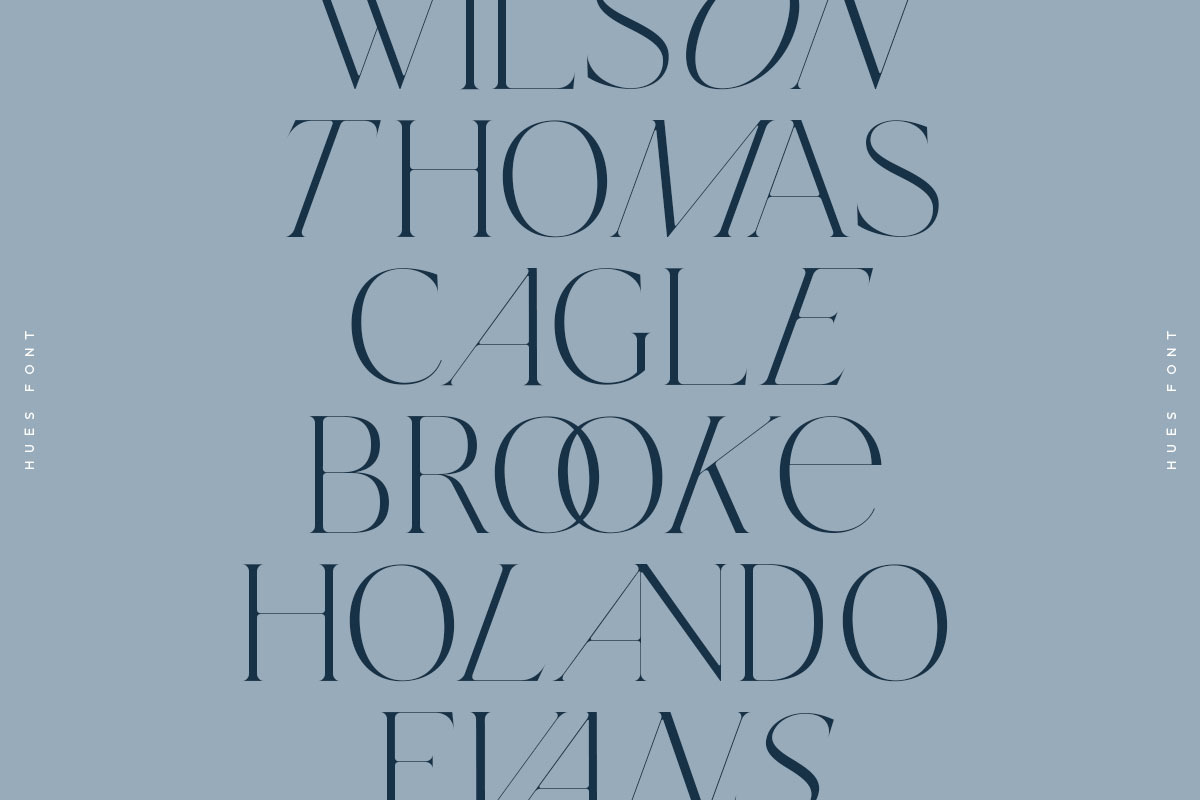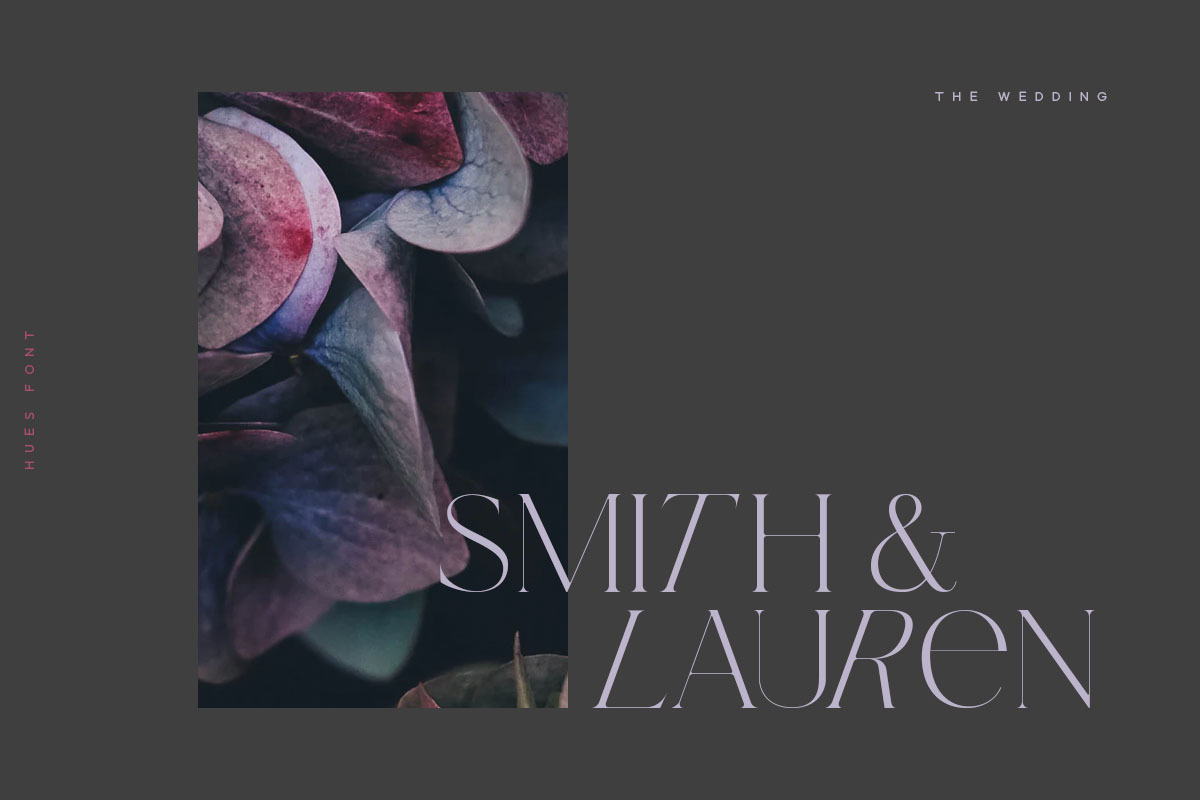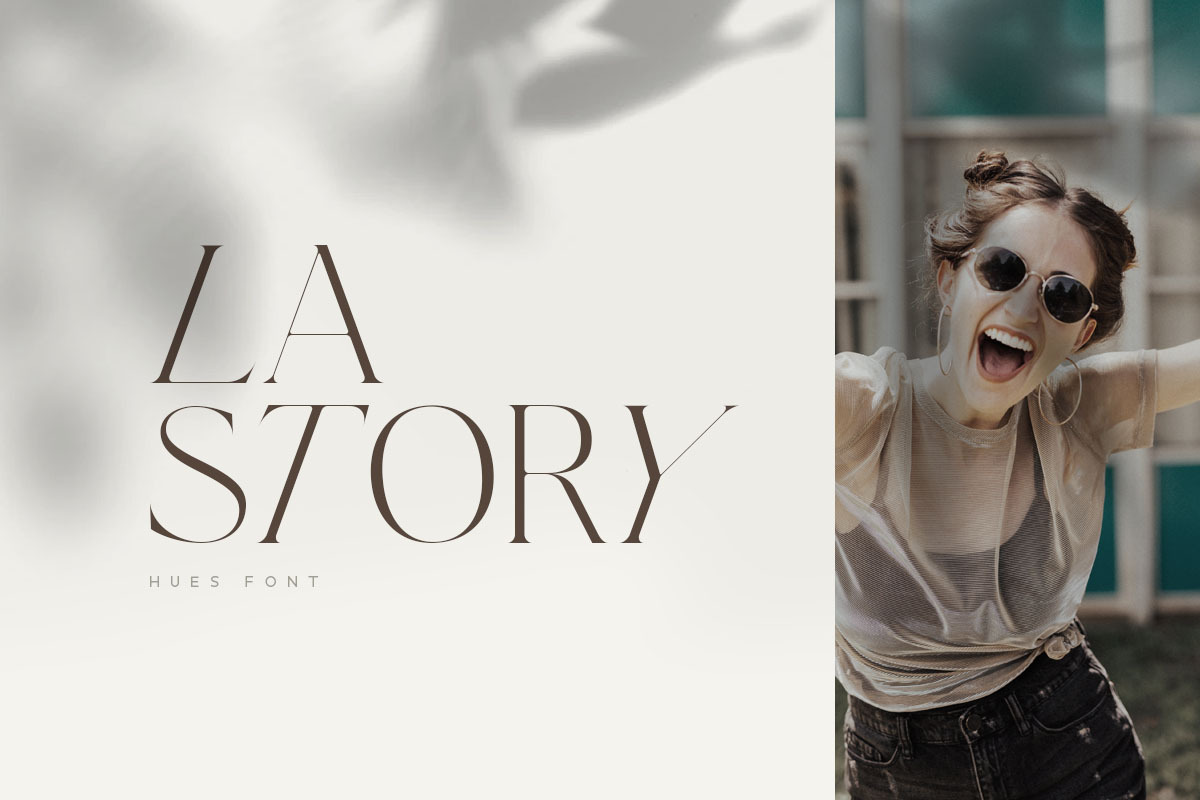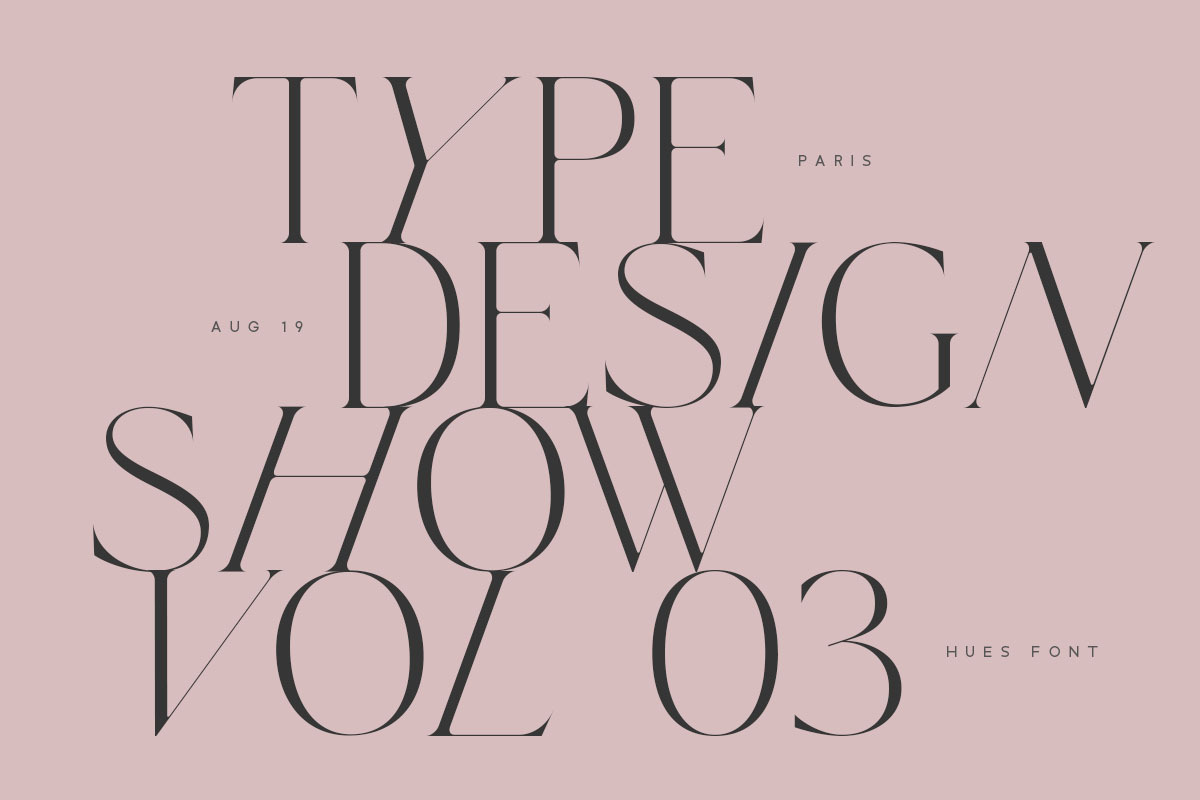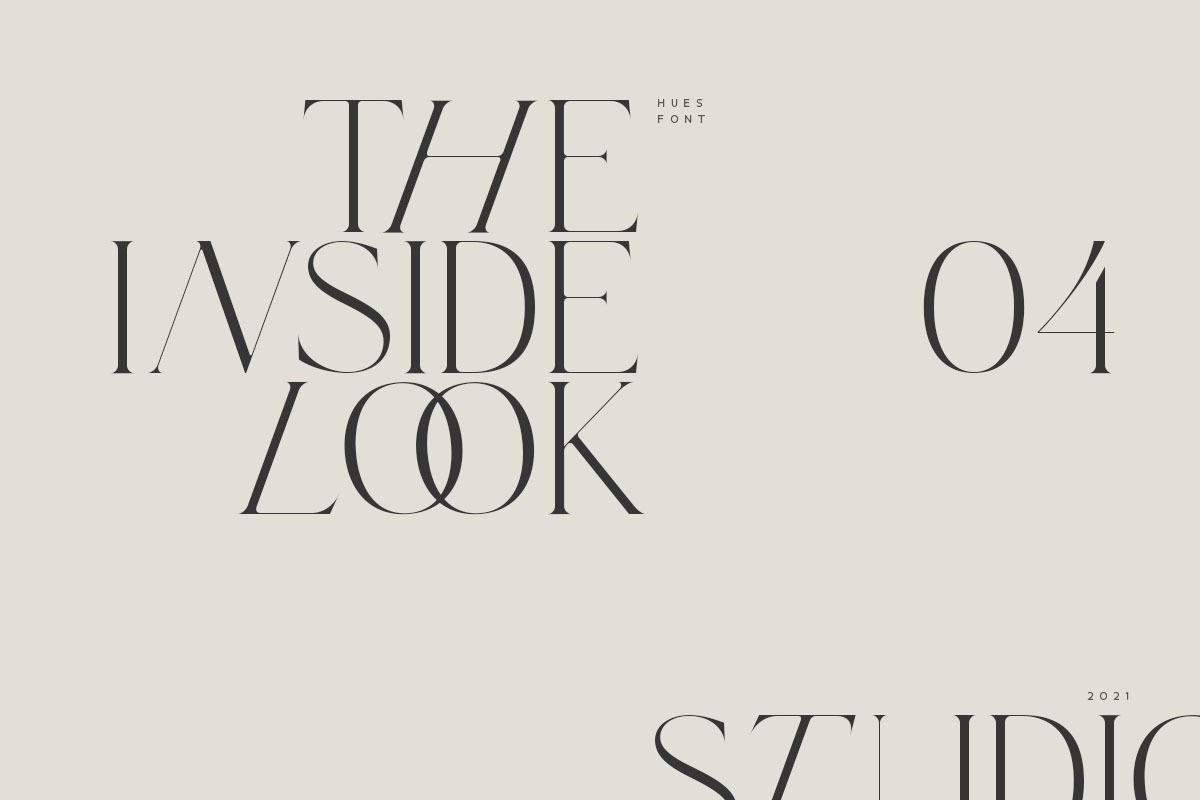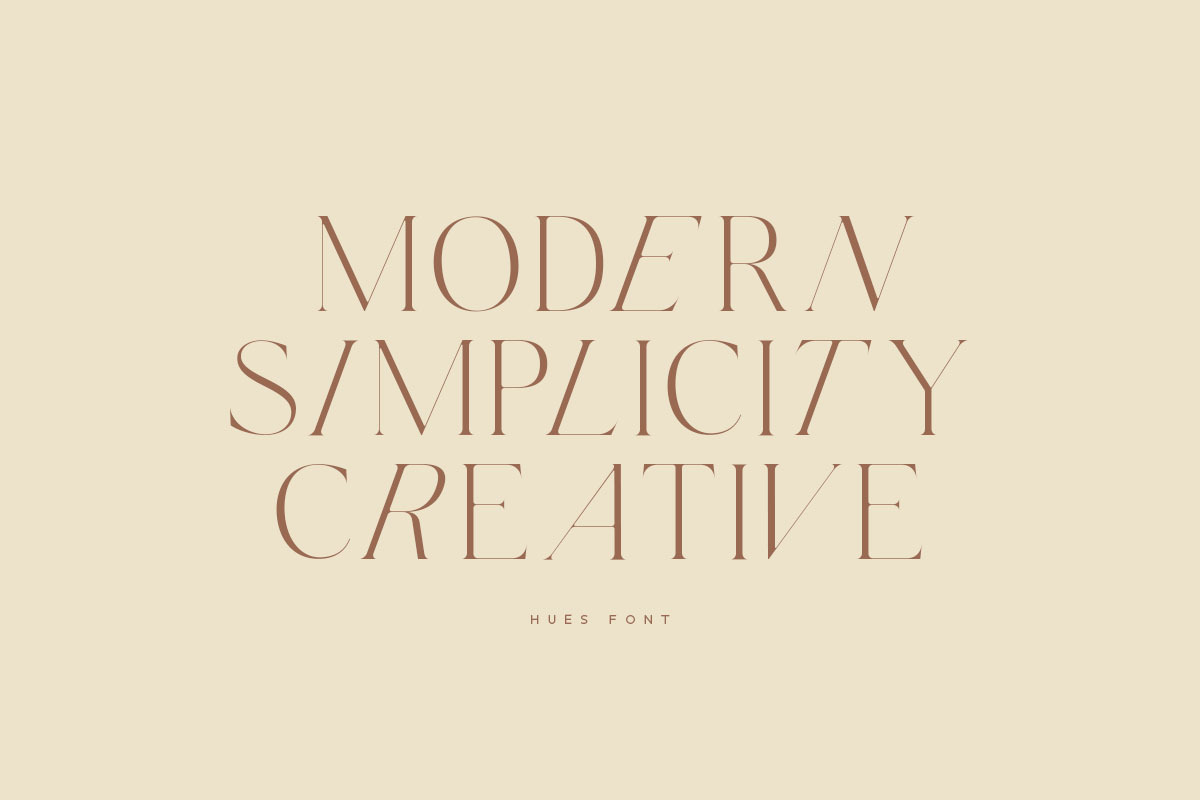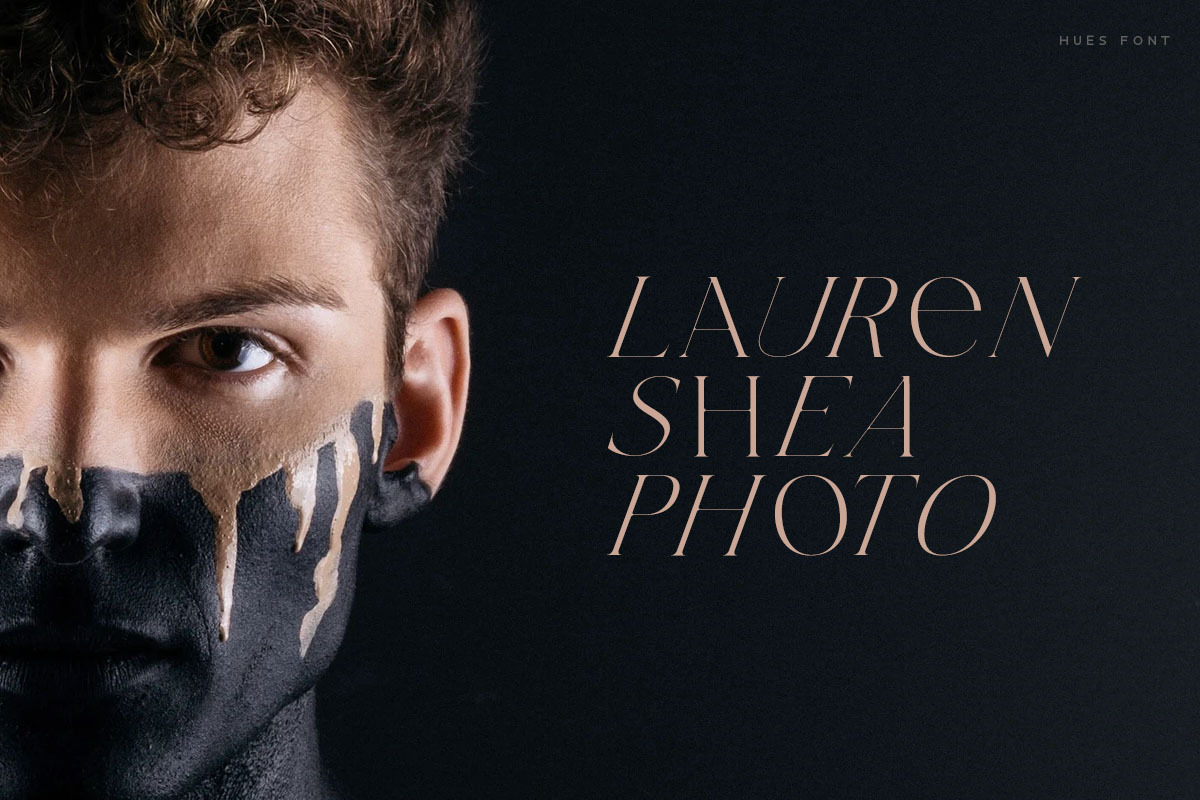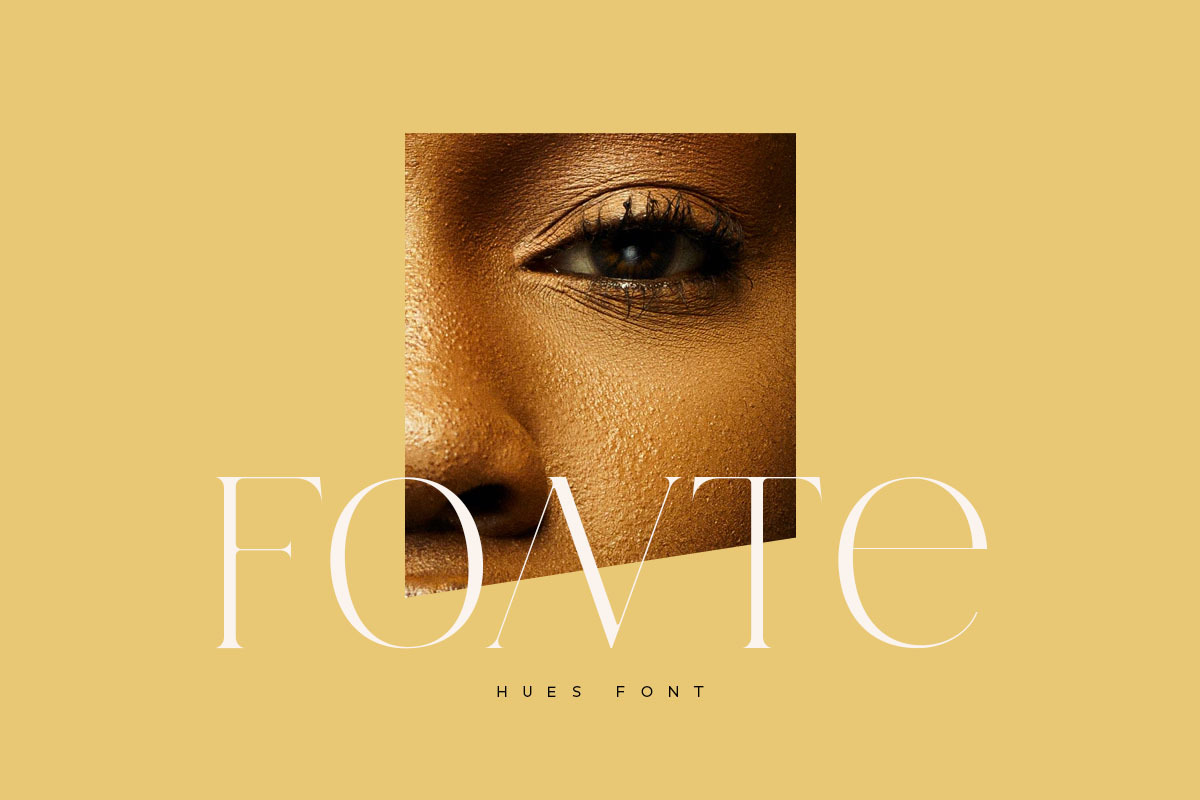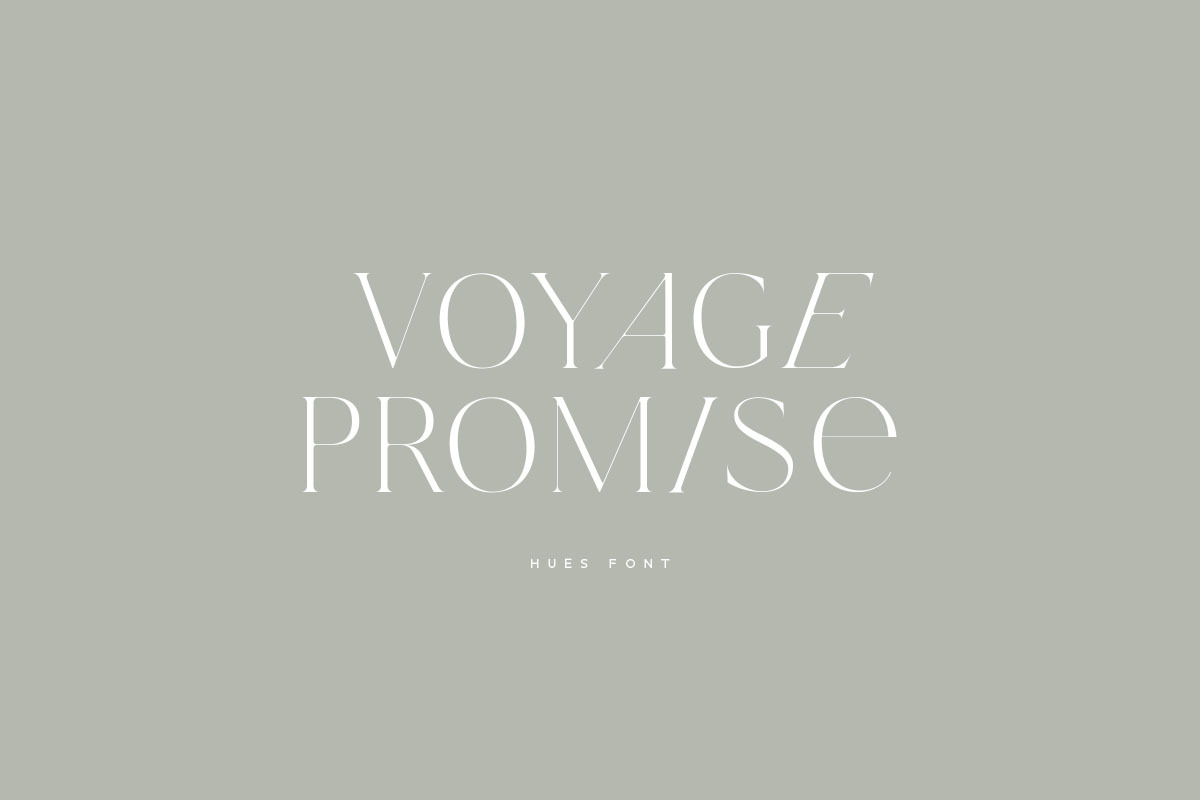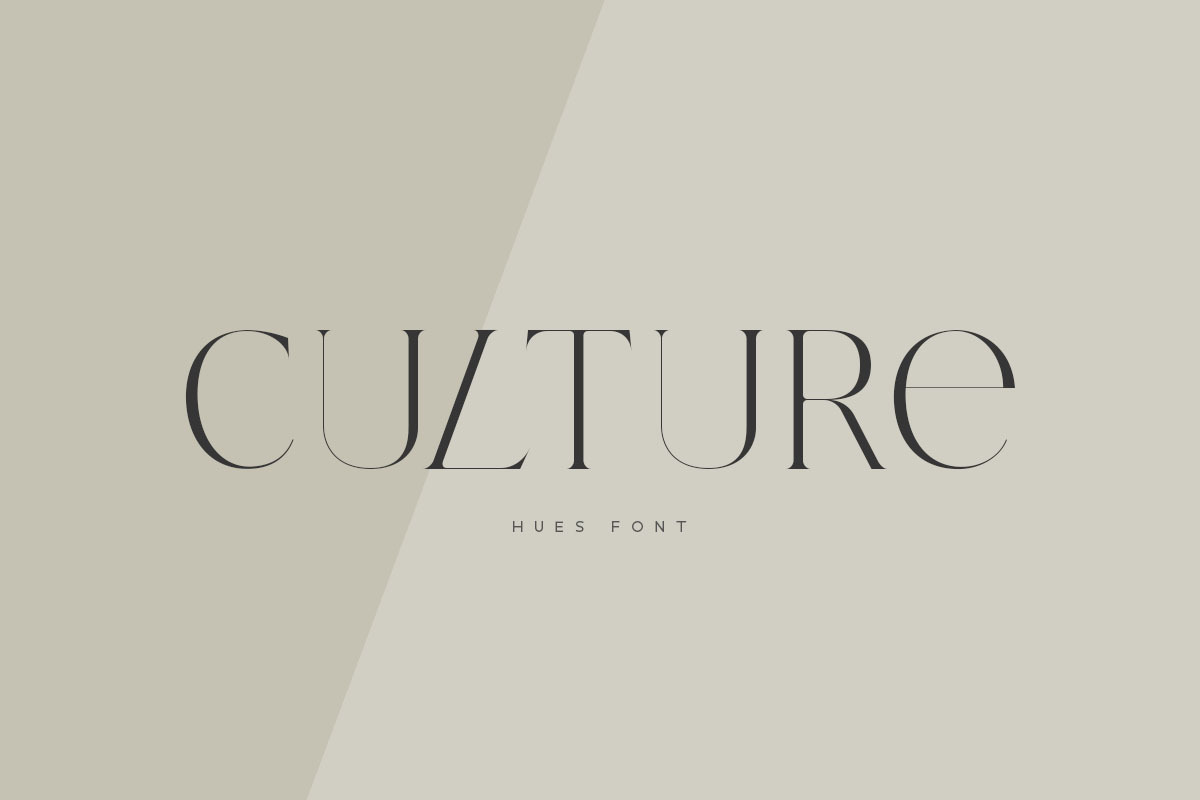
Hues Serif
Introducing Hues Font!
Hues is modern fashion serif font, every single letters have been carefully crafted to make your text looks unique.